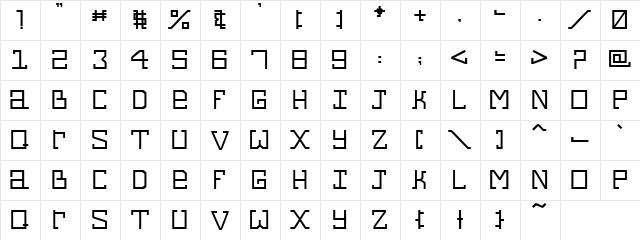
Pointepky Regular
Design Context for Pointepky Typeface
Pointepky takes a measured approach to typography — its balanced proportions and neutral character make it a reliable workhorse for both digital and print work.